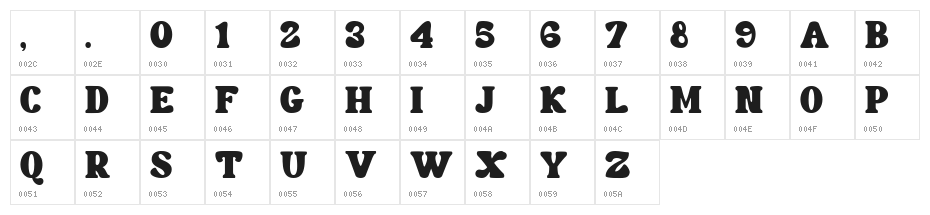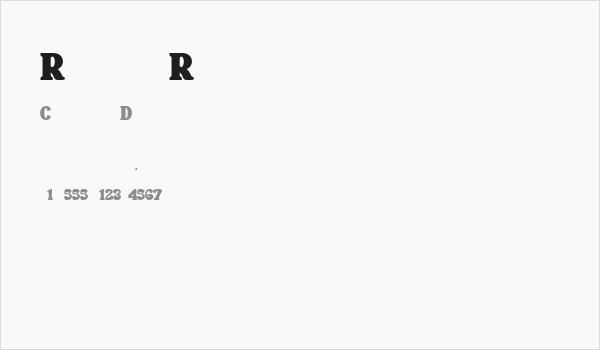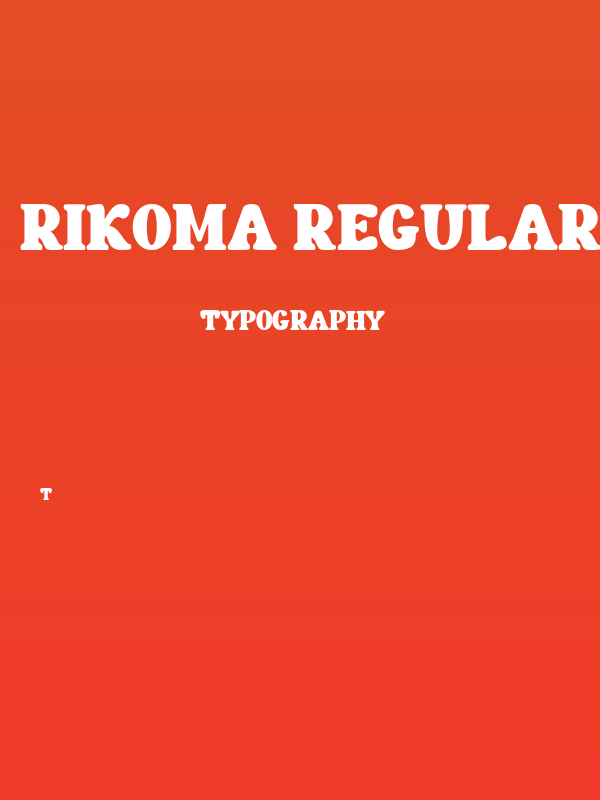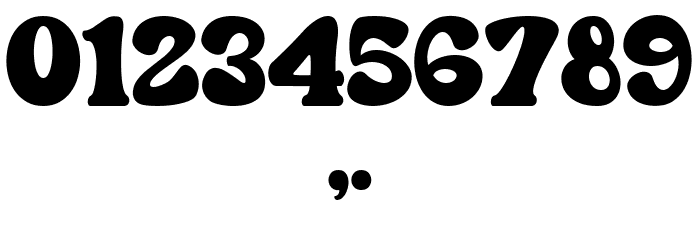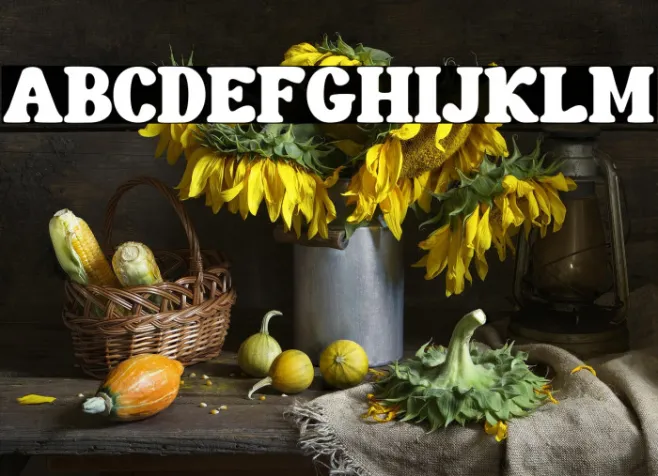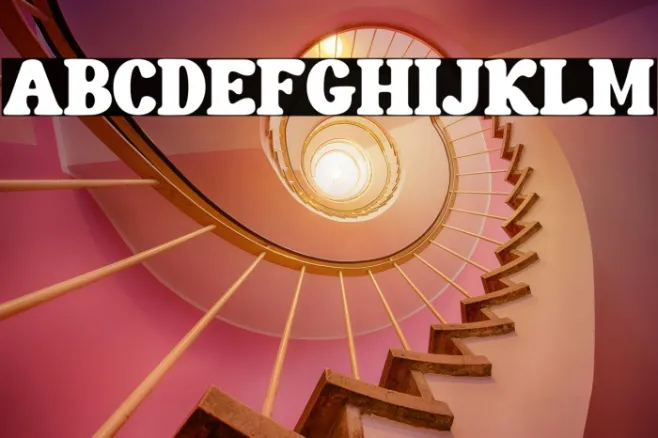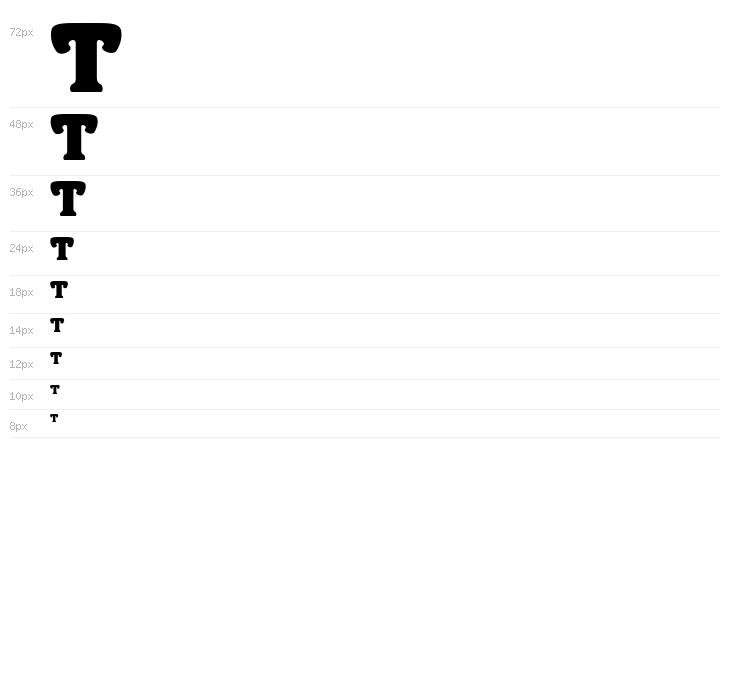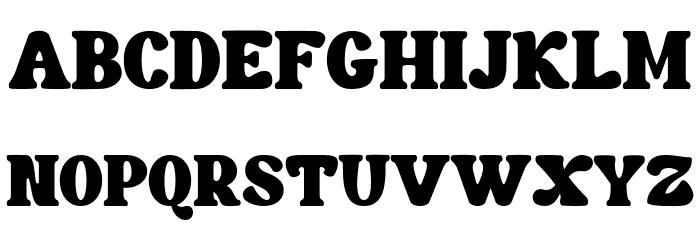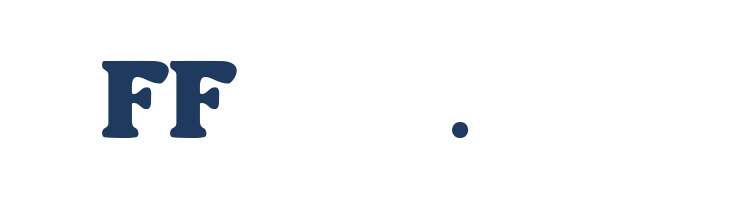
Rikoma Regular Font
Rikoma Regular Description
This font features a bold and playful design with thick, rounded strokes that give it a distinctive and eye-catching appearance. The characters are well-defined with a slight vintage flair, making it suitable for designs that require a touch of nostalgia. The uppercase and lowercase letters maintain a consistent style, with the numbers and special characters following suit. The overall look is both robust and approachable, ideal for projects that need to convey a sense of fun and creativity.
| Proposed Projects | Ideal for posters, children's books, branding, and playful packaging designs. |